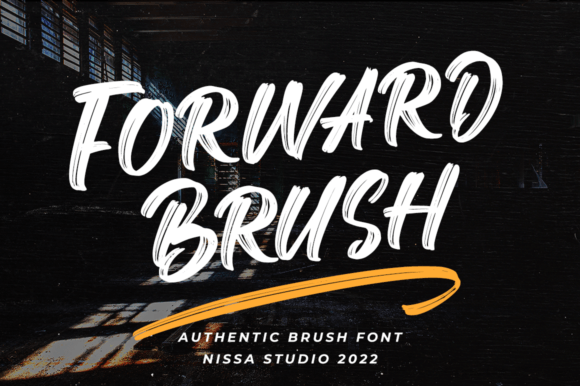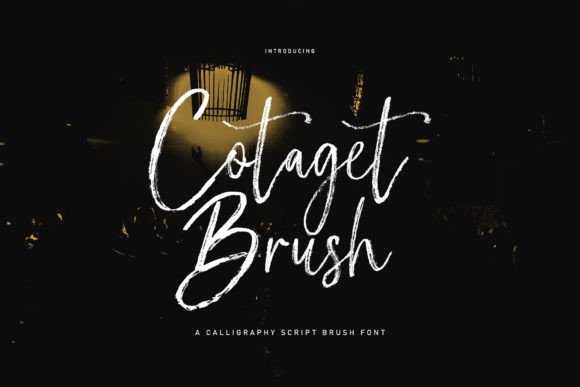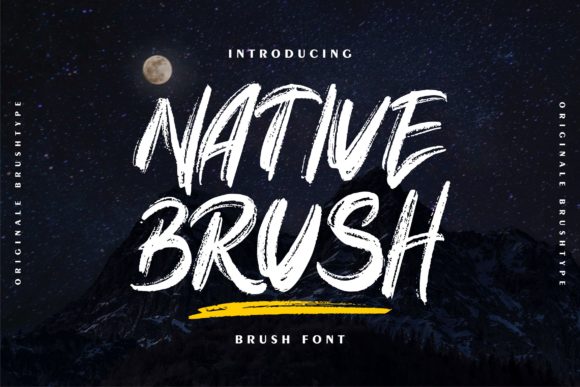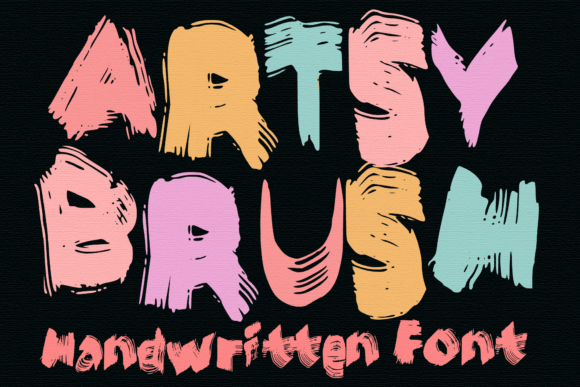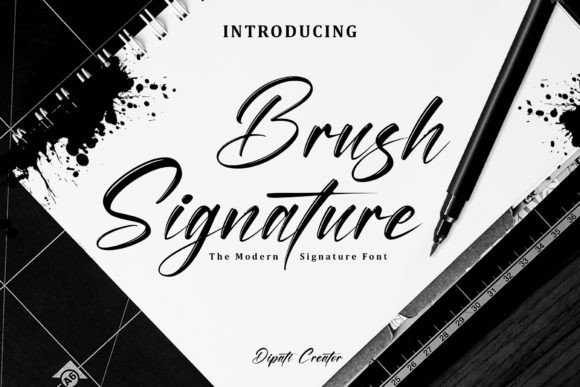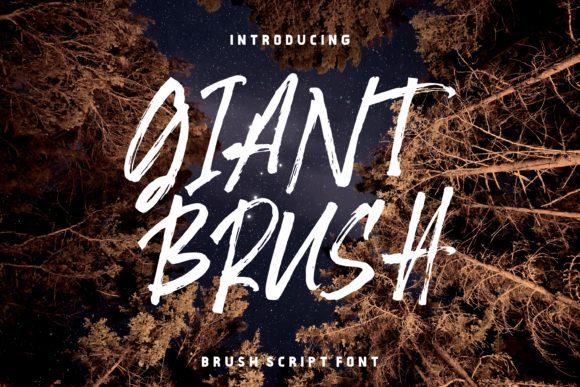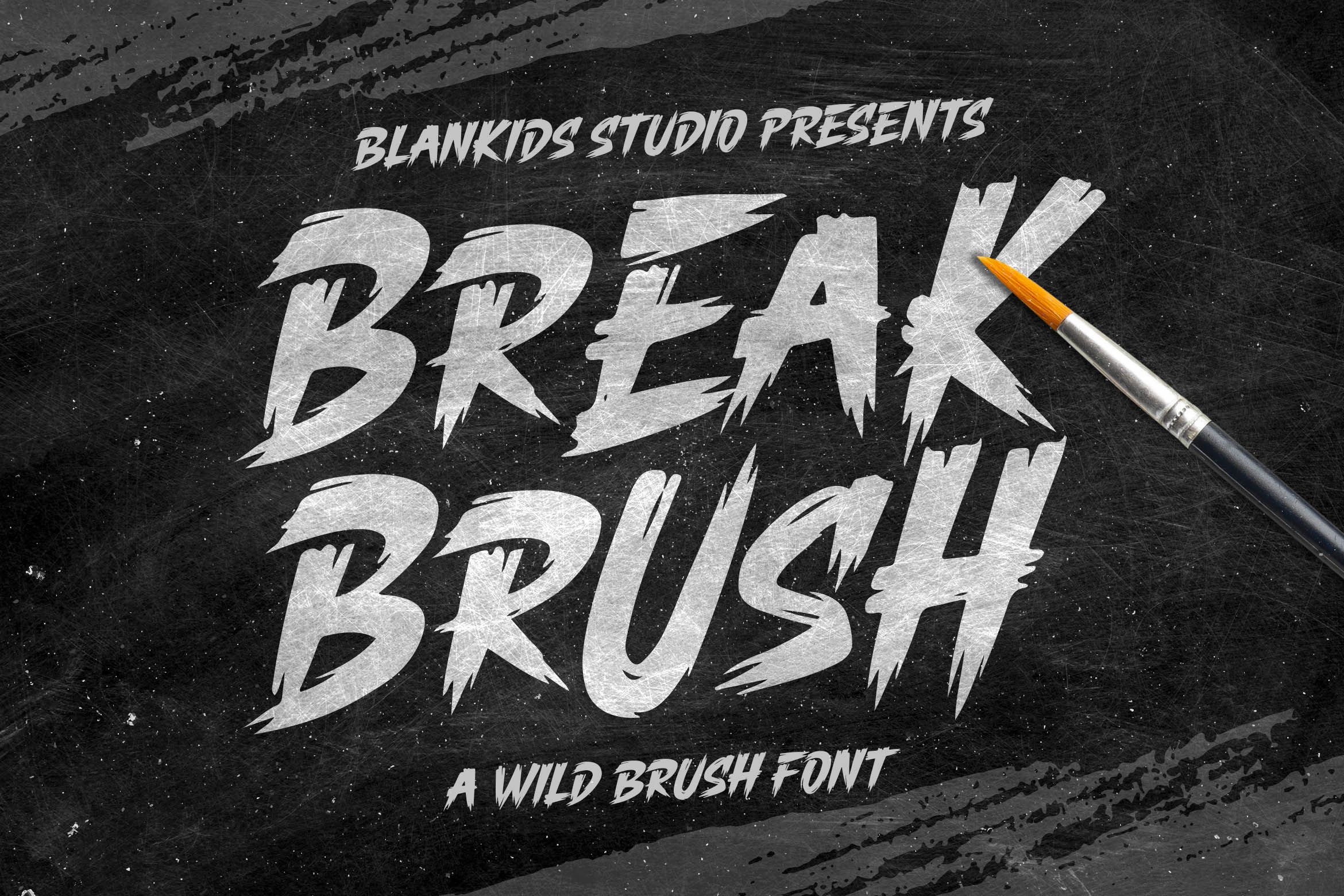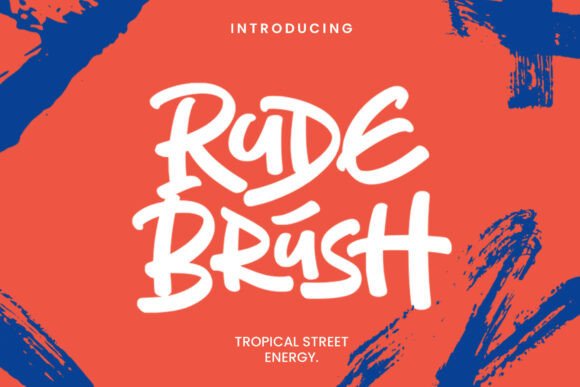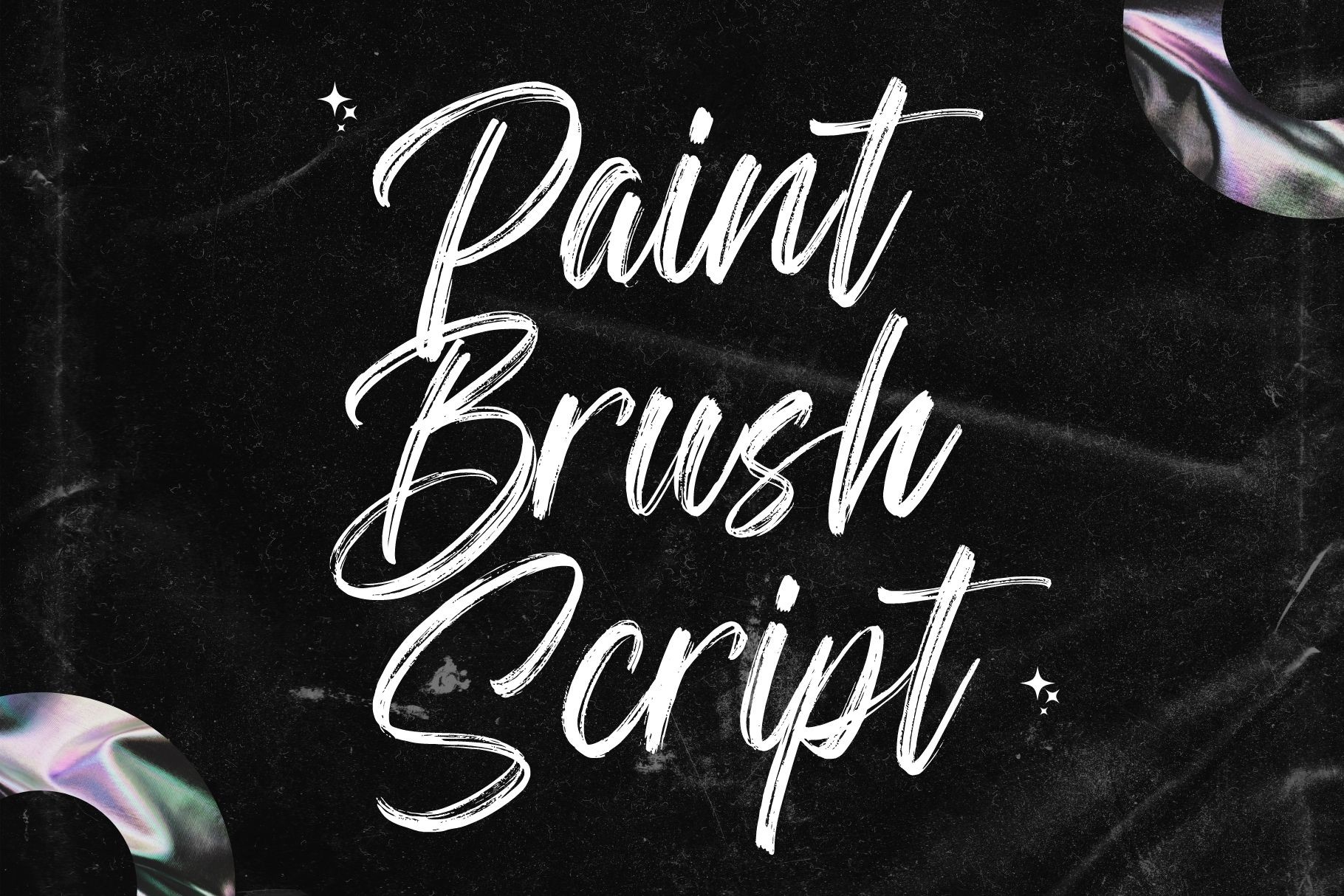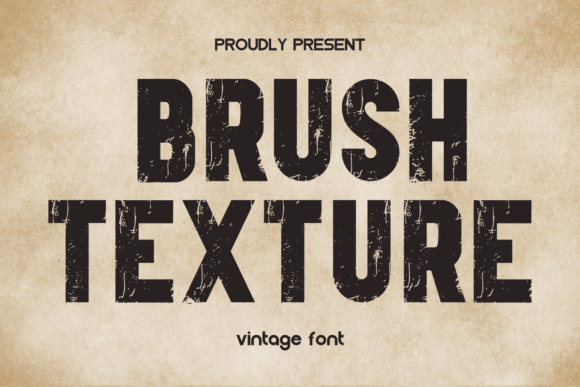
Discover 27 of the best professional brush fonts to instantly elevate your designs. Whether you’re creating logos, social posts, or packaging, these expertly selected fonts work across platforms like Canva, Photoshop, Illustrator, and Procreate. Download your favorites for commercial use, and give your visual content a modern, artistic flair.
Why Professional Brush Fonts Matter for Modern Designers
Professional brush fonts deliver a hand-crafted, energetic feel that’s a must-have for designers, bloggers, Etsy sellers, Amazon sellers, and small business owners looking to make their brands stand out in 2026. Their versatile strokes mimic real brushwork, adding personality and authenticity to everything from logo design and website headers to product packaging and social media graphics. With the rise of digital platforms and DIY branding, choosing the right brush font has never been more crucial. These typefaces provide instant character and adaptability for a wide array of design applications, appealing to audiences worldwide. Explore our expertly curated collection to find commercial brush fonts that will redefine your branding, support digital product creation, and help your work shine across every platform you use. Start boosting engagement and creativity today with fonts designed for professional impact. Instagram Location New Font Style Guide for 2026
Top 5 Professional Brush Fonts Comparison
| Forward Brush Font | Bold, Dry Brush | Logos, Merch, Posters | Commercial Use |
| Brush Fonts Bundle Bundle | Mixed Brush, Handwritten | Branding Kits, Digital Products | Commercial Use |
| Cotaget Brush Font | Casual, Organic Script | Wedding Invites, Personal Branding | Commercial Use |
| Brush Font Bundle Bundle | Modern, Signature Brush | Social Graphics, Stickers | Commercial Use |
| Native Brush Font | Rough, Artistic | Restaurant Menus, Apparel | Commercial Use |
Reviews: The Best Professional Brush Fonts
Forward Brush Font by NissaStudio · Creative Fabrica
Forward Brush brings strong, dry brush strokes for a bold and assertive look. Its rugged edges and organic texture make it a standout for sports branding, merch designs, and attention-grabbing poster headlines. This font’s energetic style is ideal for any project where you want to evoke movement and confidence.
Brush Fonts Bundle Bundle · Creative Fabrica
This bundle offers a wide array of brush fonts with diverse moods, from casual scripts to expressive hand-lettered styles. Perfect for designers creating branding kits, printables, or digital product covers, it provides a toolkit for almost any occasion. Use these fonts to differentiate your Etsy products, social graphics, or client projects.
Cotaget Brush Font by nowlystudios · Creative Fabrica
Cotaget Brush Font charms with its casual, friendly brush script, evoking softness and warmth. Its organic flow and approachable vibe make it perfect for wedding invitations, greeting cards, or personal branding for creative businesses. Use Cotaget for projects that require a handmade but stylish touch.
Brush Font Bundle Bundle · Creative Fabrica
With numerous signature-style brush fonts, this bundle is a go-to resource for designers needing a variety of authentic, handwritten looks. Its modern and expressive characters are especially suited for product packaging, stickers, and Instagram quote templates. Elevate your brand’s personality by mixing different scripts from this set.
Native Brush Font by Vunira · Creative Fabrica
Native Brush brings rough, expressive brushwork to your designs, making it perfect for projects that demand an artisanal edge. The font works well for restaurant menus, T-shirt graphics, or rustic branding projects. Its irregular strokes deliver authenticity and creativity to digital and print layouts.
Artsy Brush Font by MVMET · Creative Fabrica
Artsy Brush is packed with painterly details for an edgy yet artistic impact. This font is excellent for crafts, creative social media posts, and art event posters. Its sweeping, expressive lines help your messages pop with personality and movement.
Brush Signature Font by Dipati Creator · Creative Fabrica
Brush Signature offers an elegant, handwritten script look, perfect for luxury branding, photography logos, and watermark overlays. The subtle brush texture provides a natural ink flow, ideal for stylish invitations or digital signatures. Its sophisticated appeal adds grace to any application.
Giant Brush Font by Home Sweet · Creative Fabrica
Giant Brush delivers a bold, high-impact brush style for headlines and hero graphics. Its dramatic thick strokes make it suitable for sports teams, event posters, or products needing a big, memorable statement. Use this font wherever you need your message to be loud and clear.
Break Brush Font by Blankids Studio · Creative Fabrica
Break Brush features sharp, energetic brushstrokes that give it a rebellious and dynamic feel. This font shines in urban branding, youth apparel, or album art. Its playful, impactful strokes make it stand out in any bold design project.